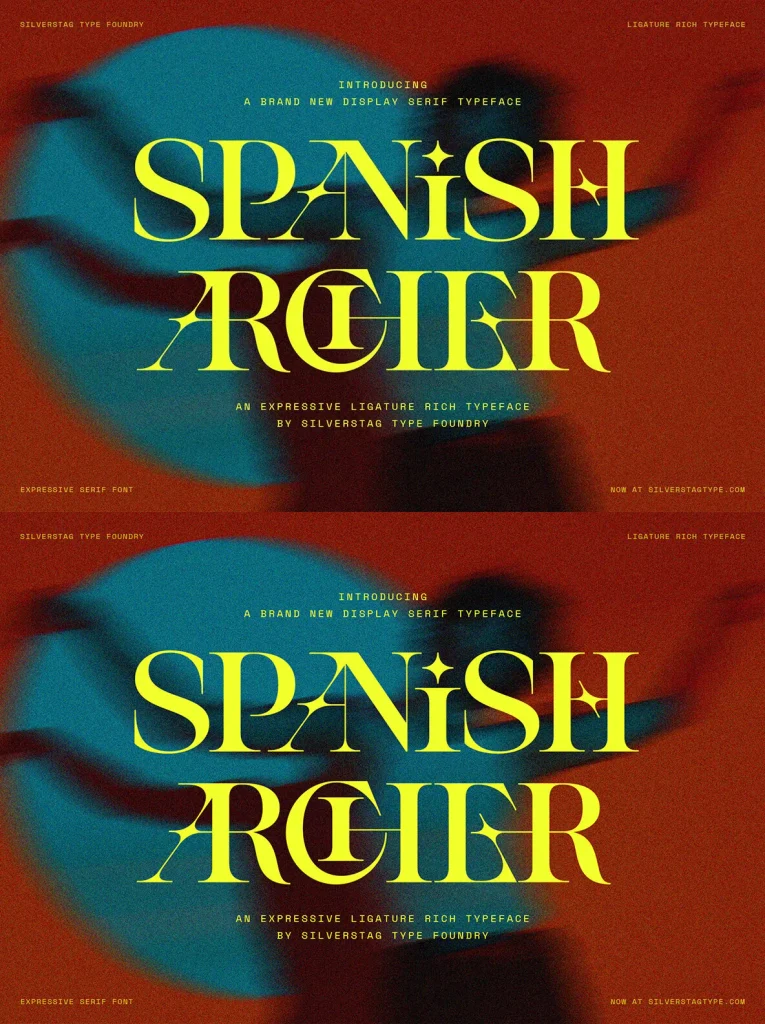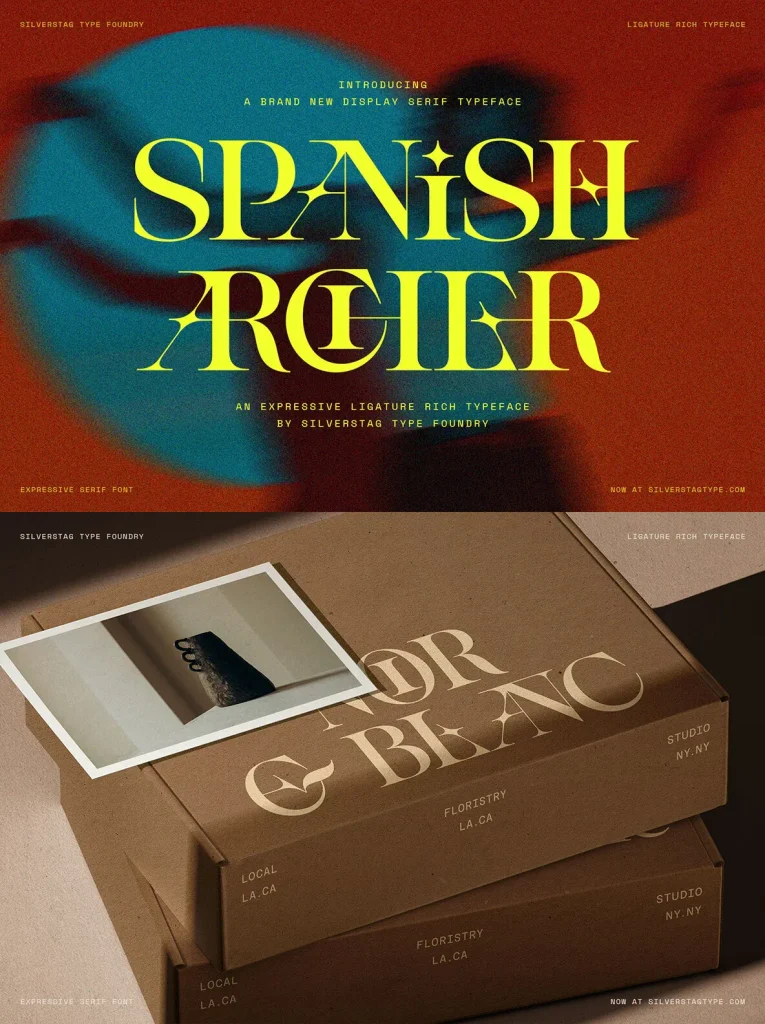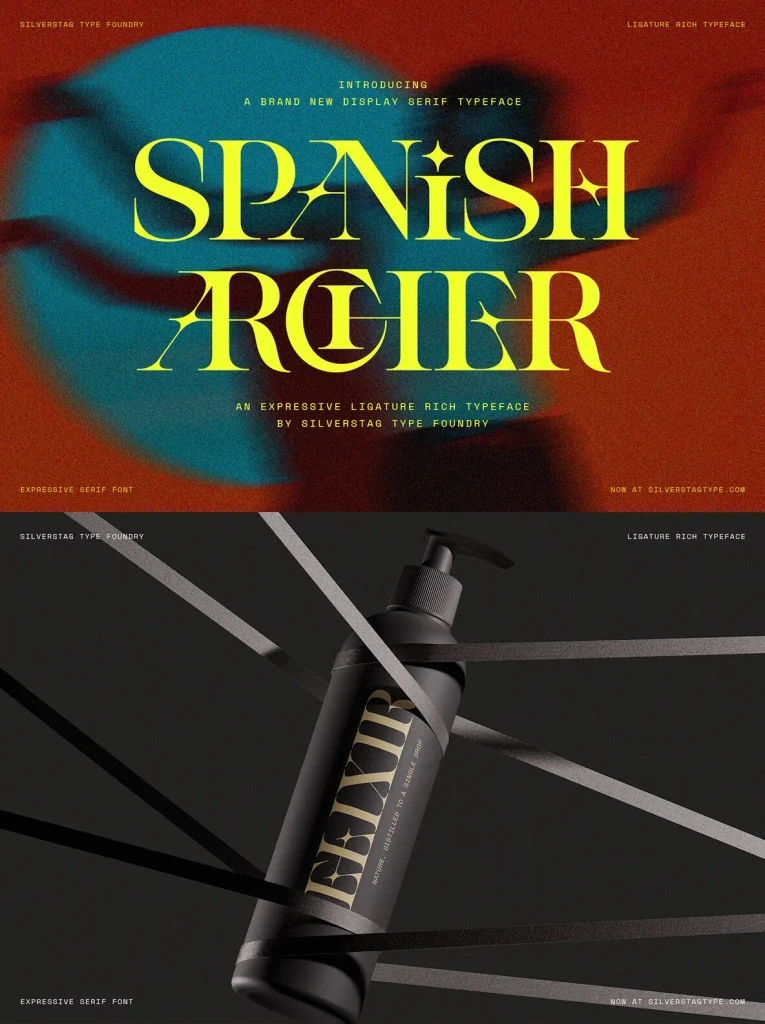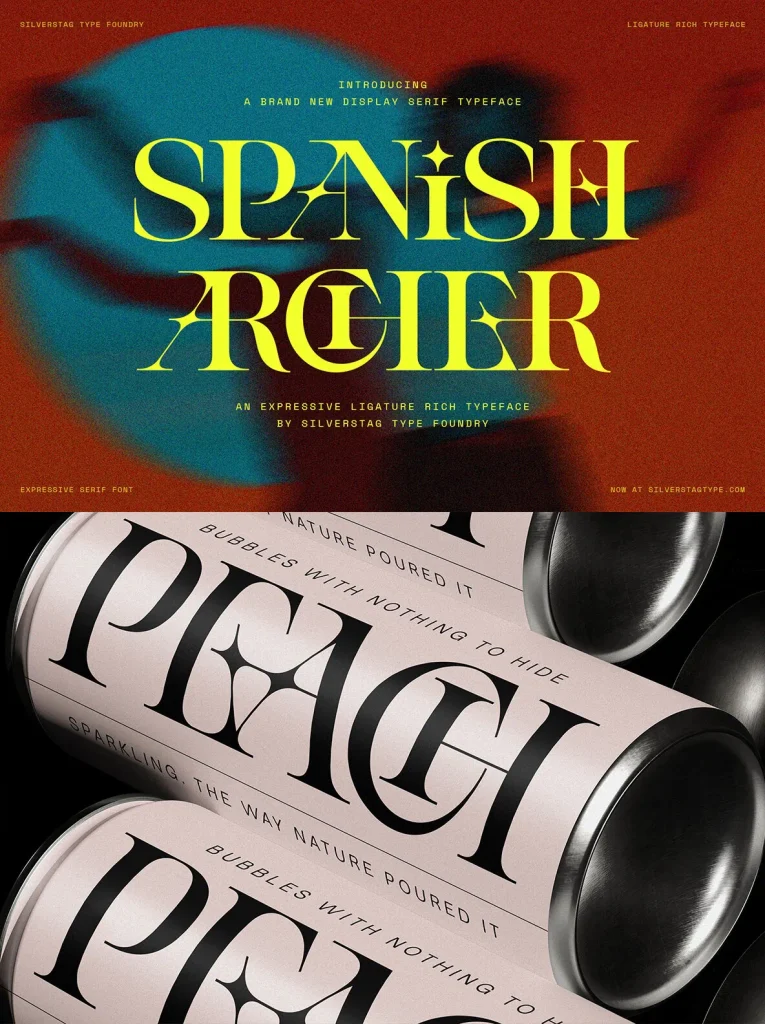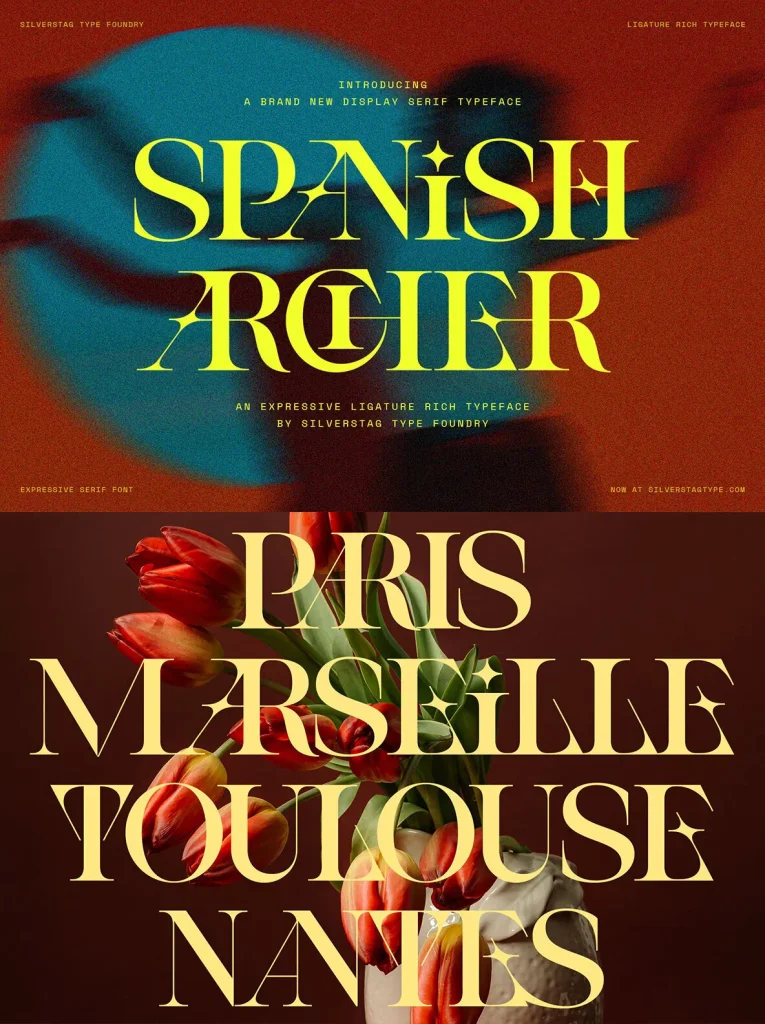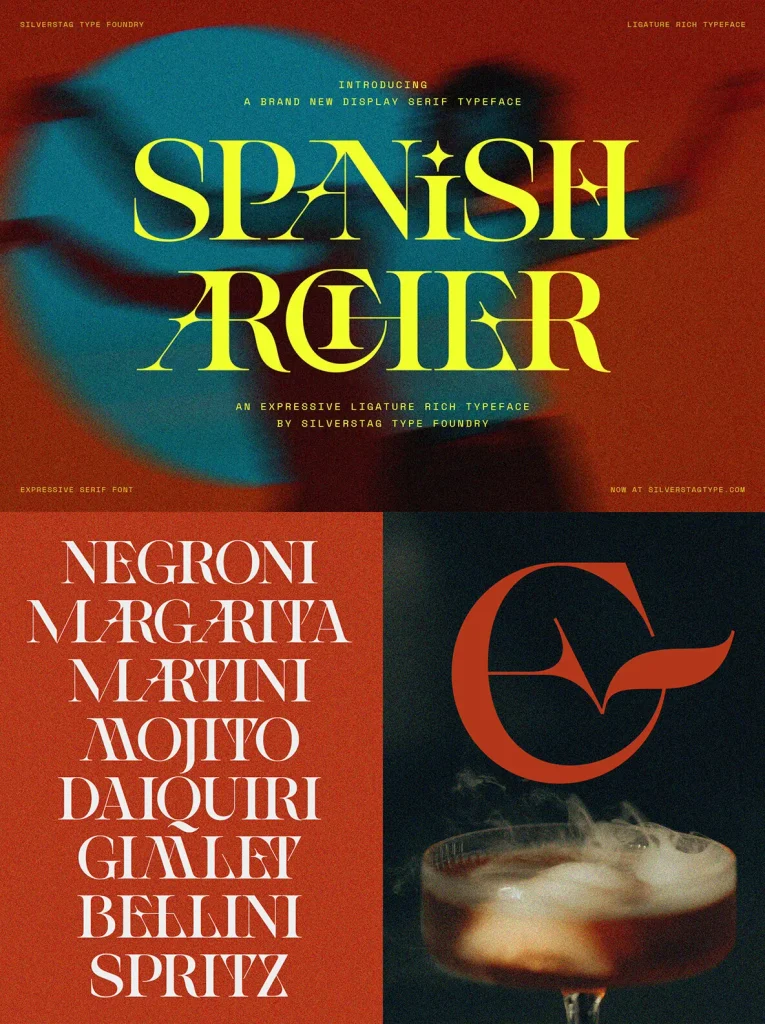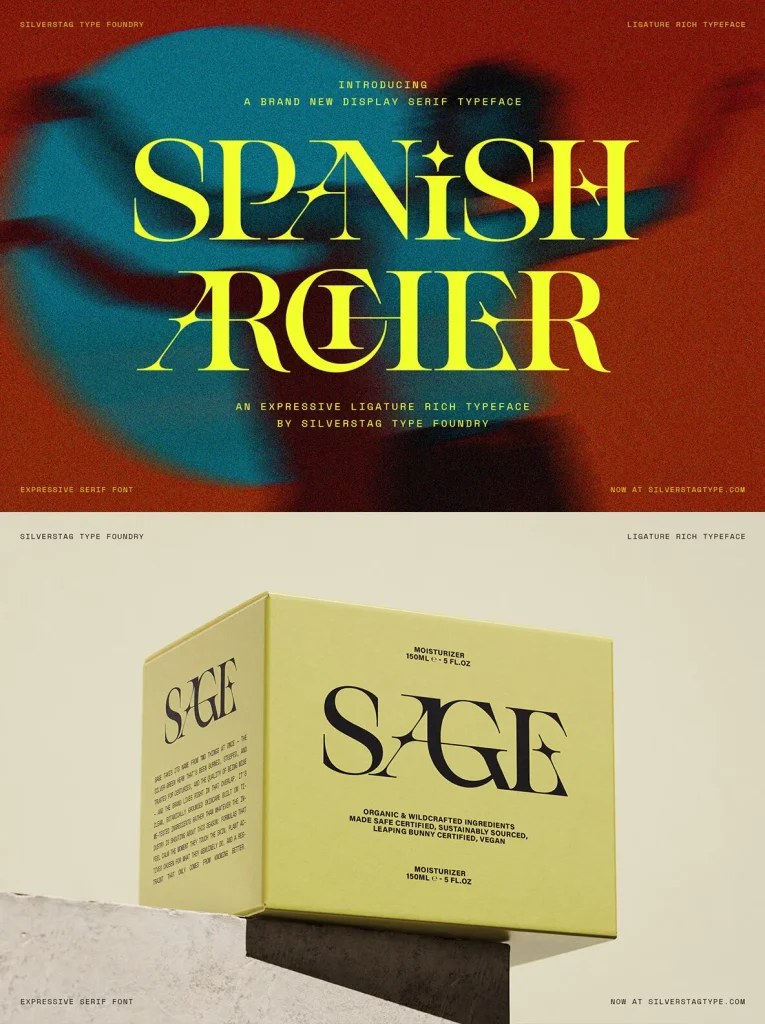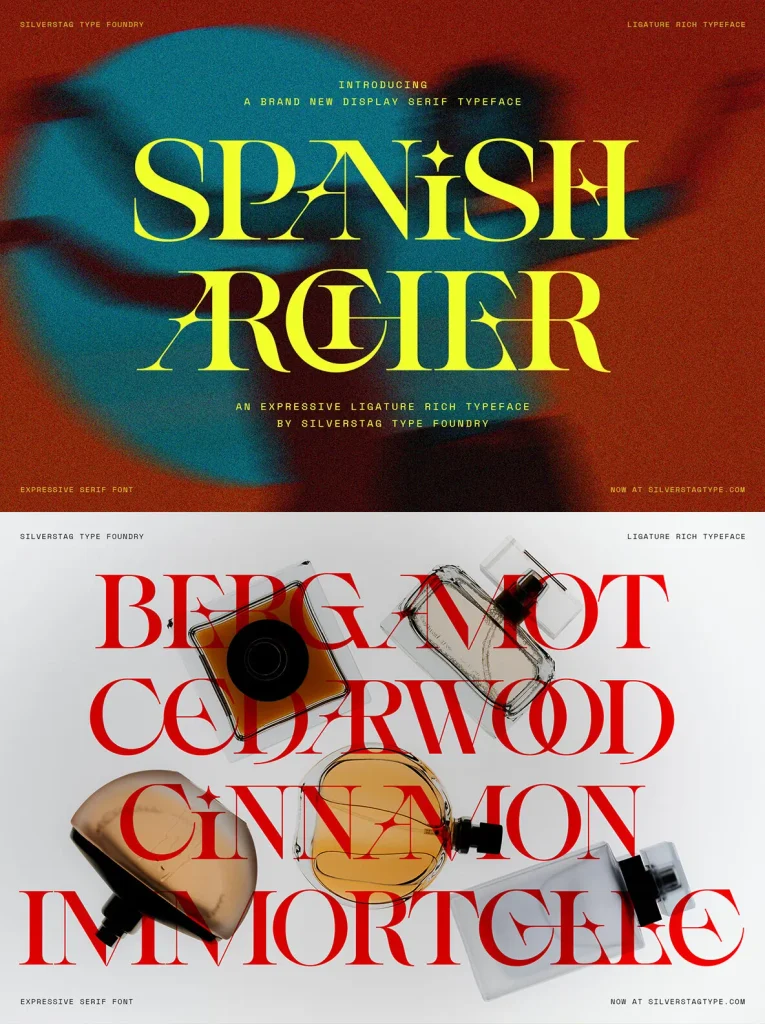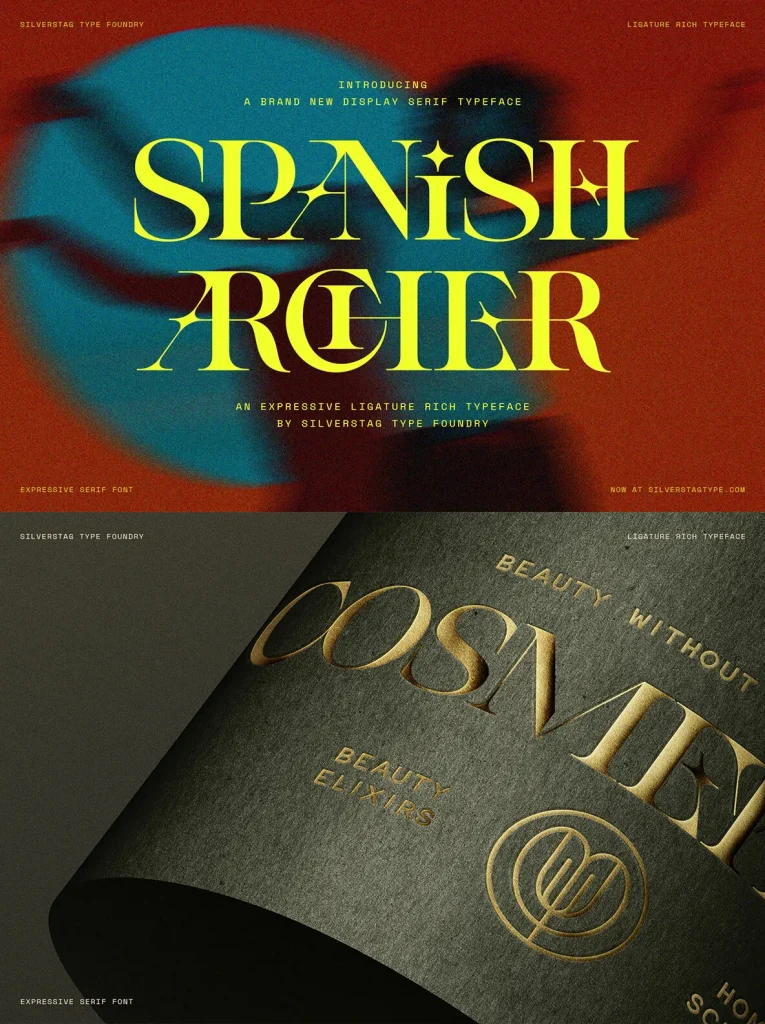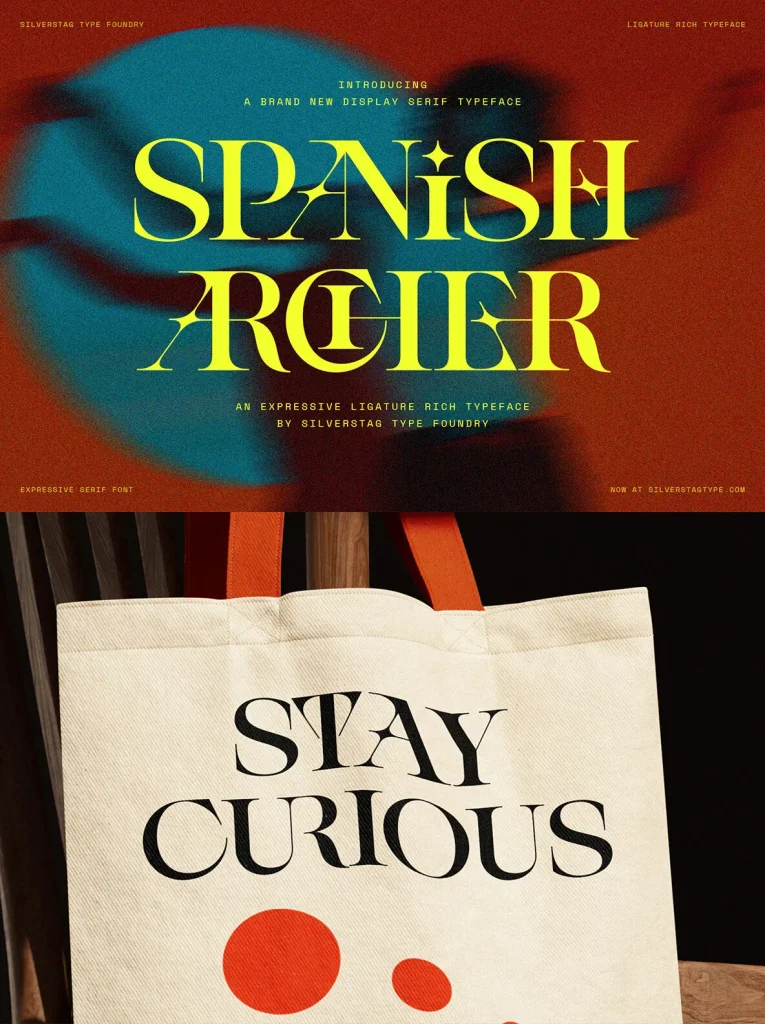
SLTF Spanish Archer Font
SLTF Spanish Archer — Letters That Interlock
SLTF Spanish Archer is an uppercase-only display serif typeface built around one clear idea: letters that refuse to stand alone. More than 200 ligatures connect, overlap, and lock characters into each other, so every word becomes a compact piece of custom lettering. There are no manual kerning tricks and no outline editing required. Set the type, and the pairs find each other.
Beneath its expressive surface is a disciplined high-contrast serif with hairline joins, confident stems, and sharp wedge details that hold up in print and on screen. At display sizes, the ligatures give headlines, wordmarks, poster typography, wine labels, and editorial openers a distinctive rhythm that can stop a reader mid-scroll.
Key Features
Uppercase-only display serif
200+ standard ligatures